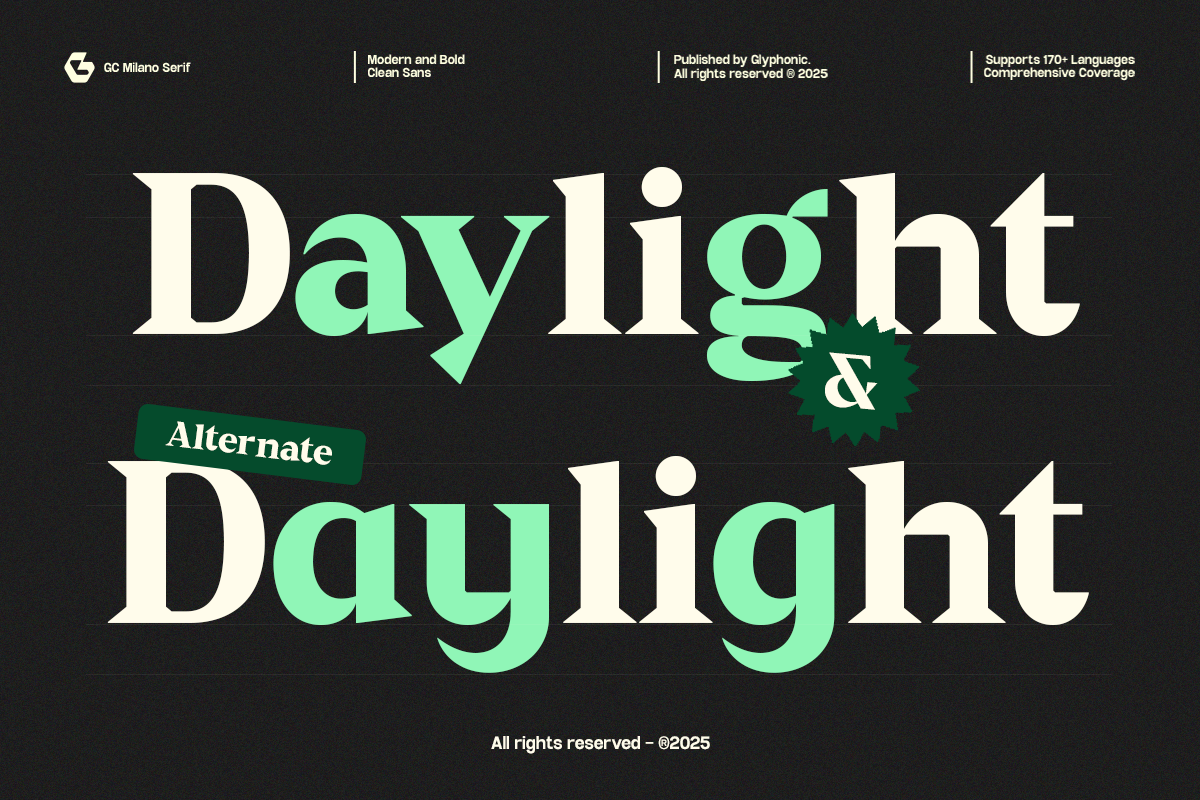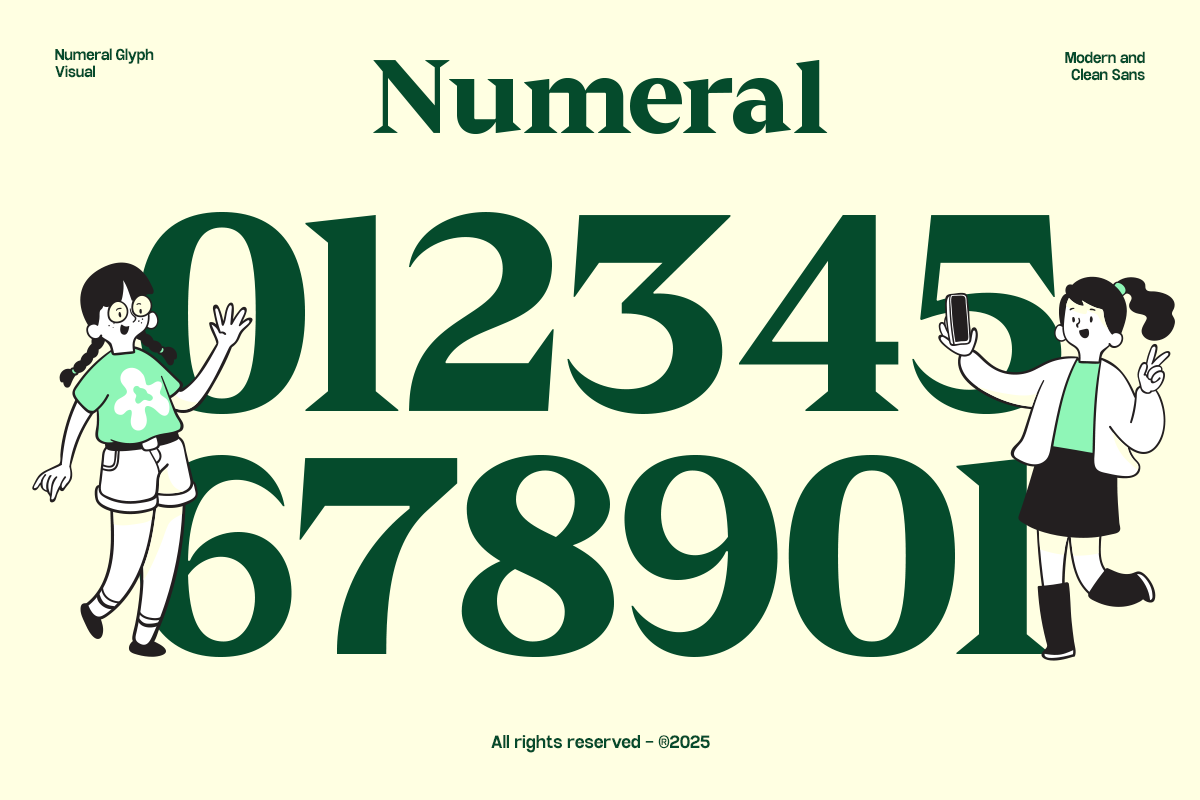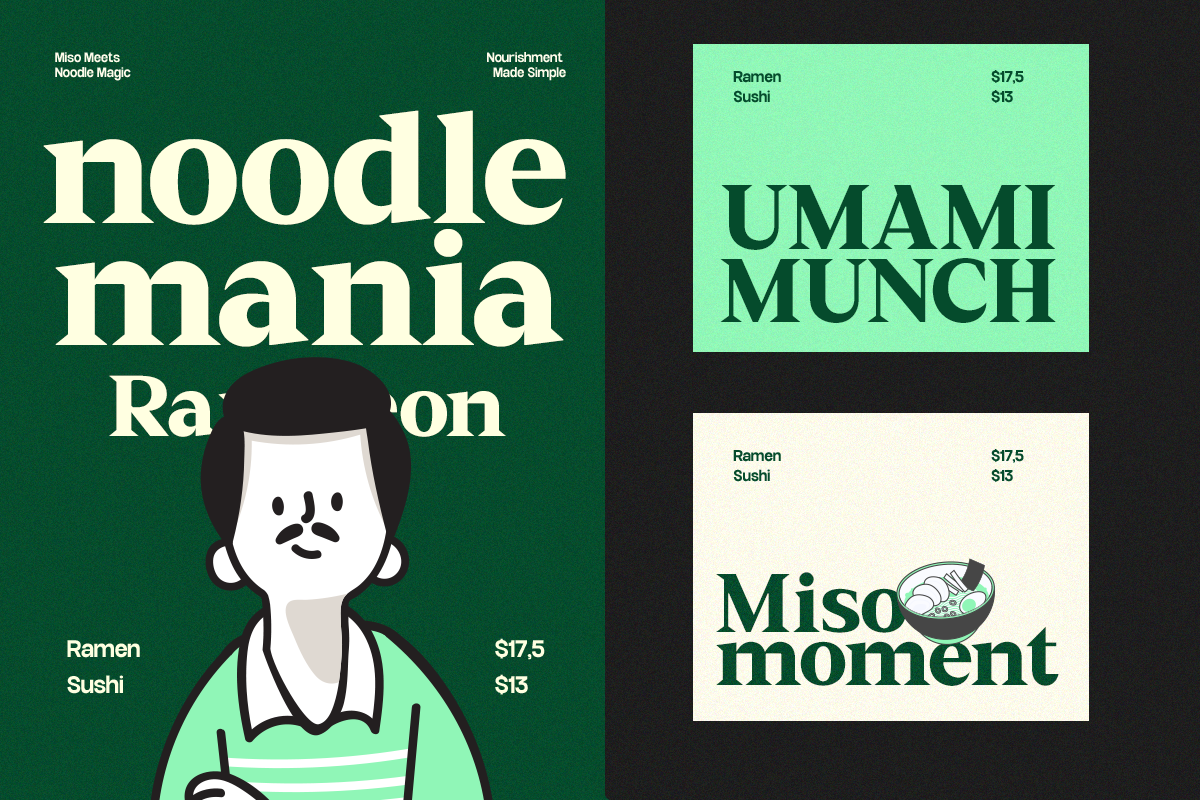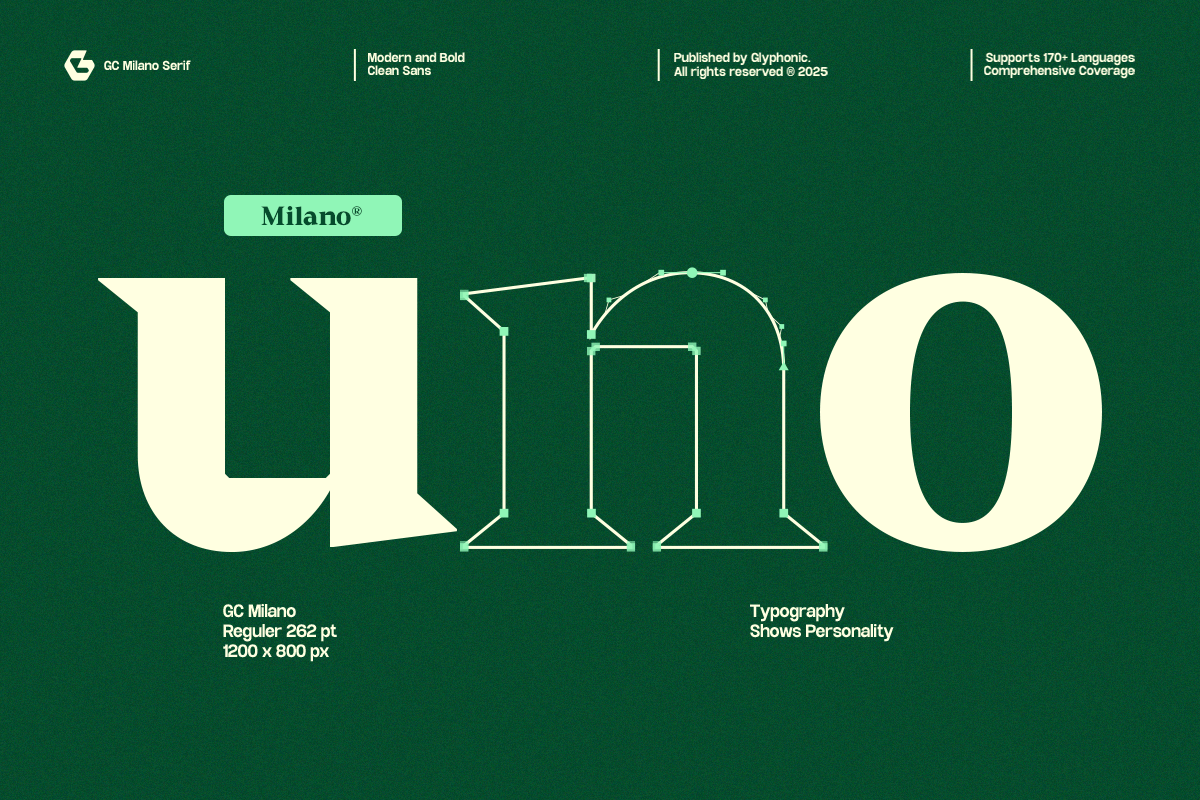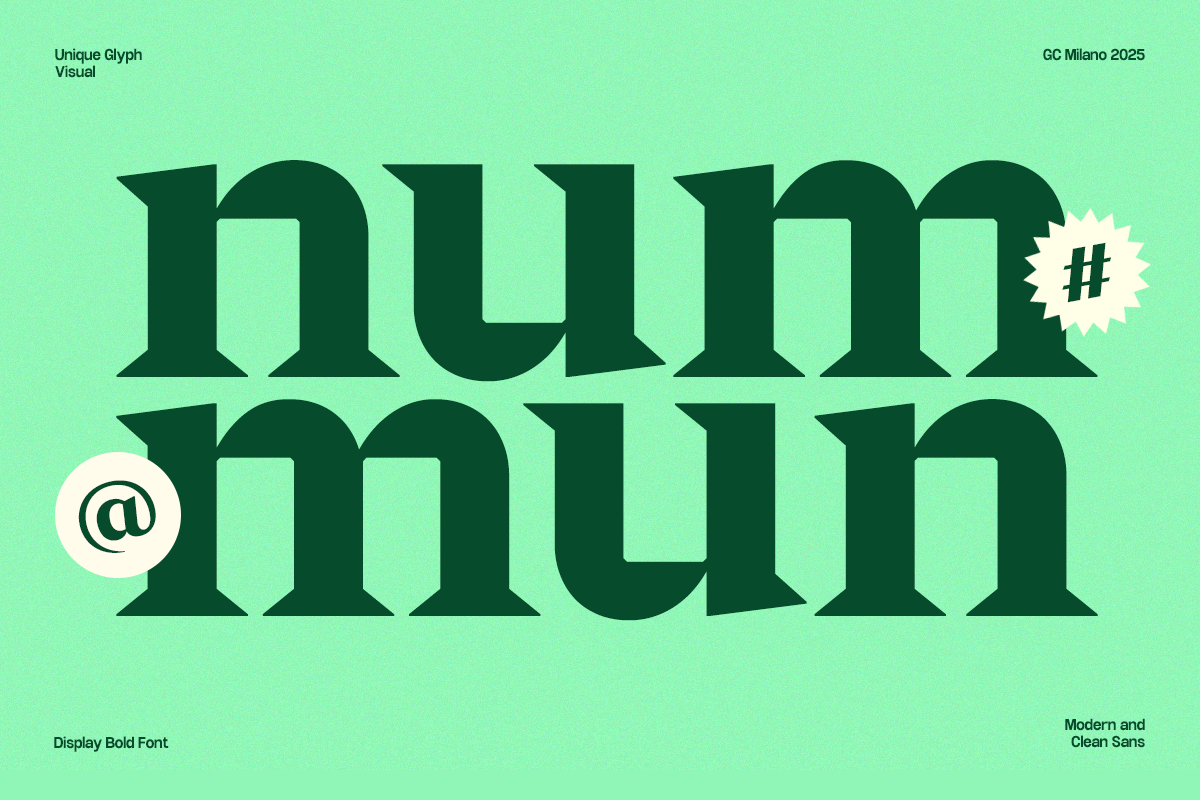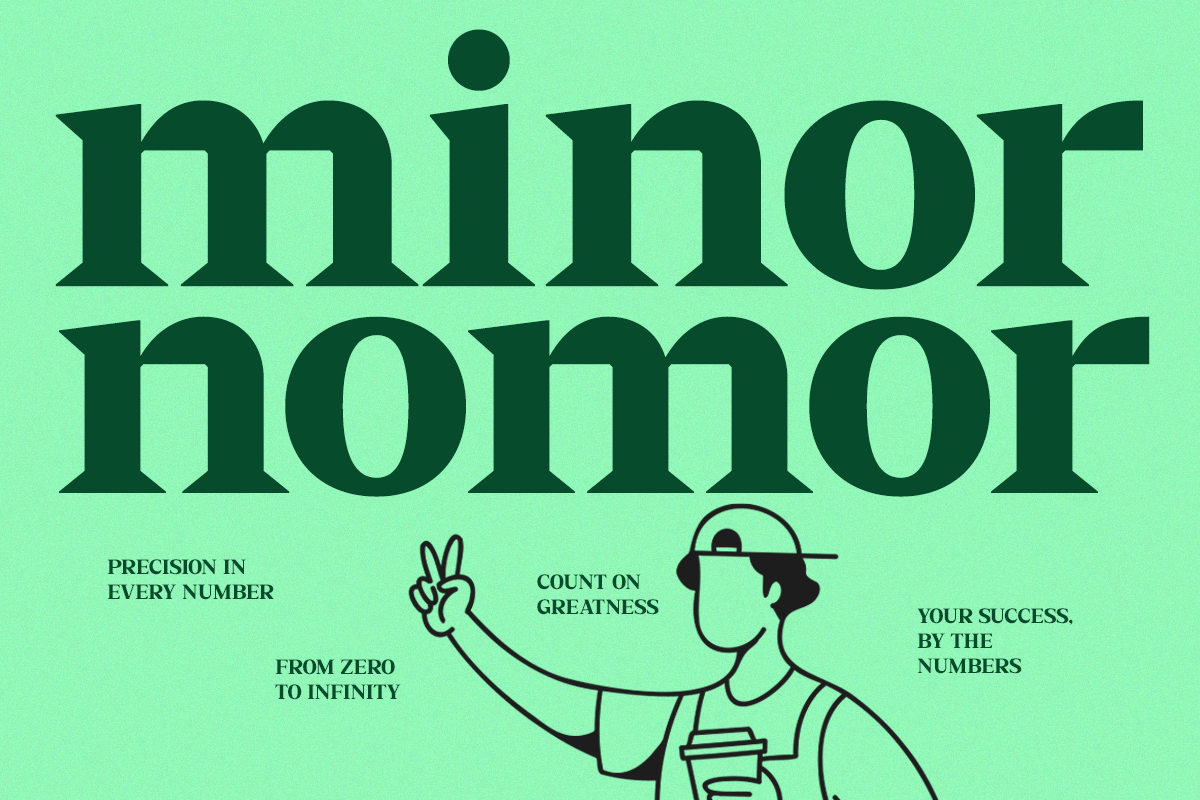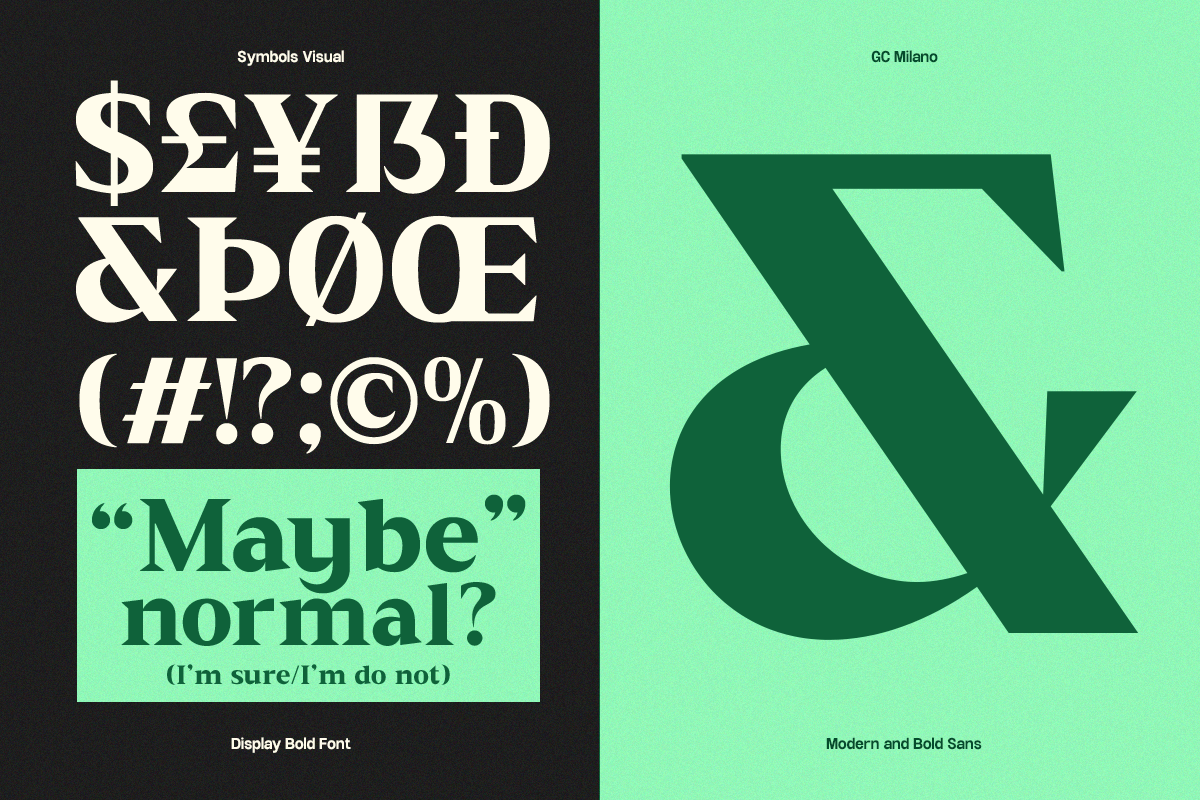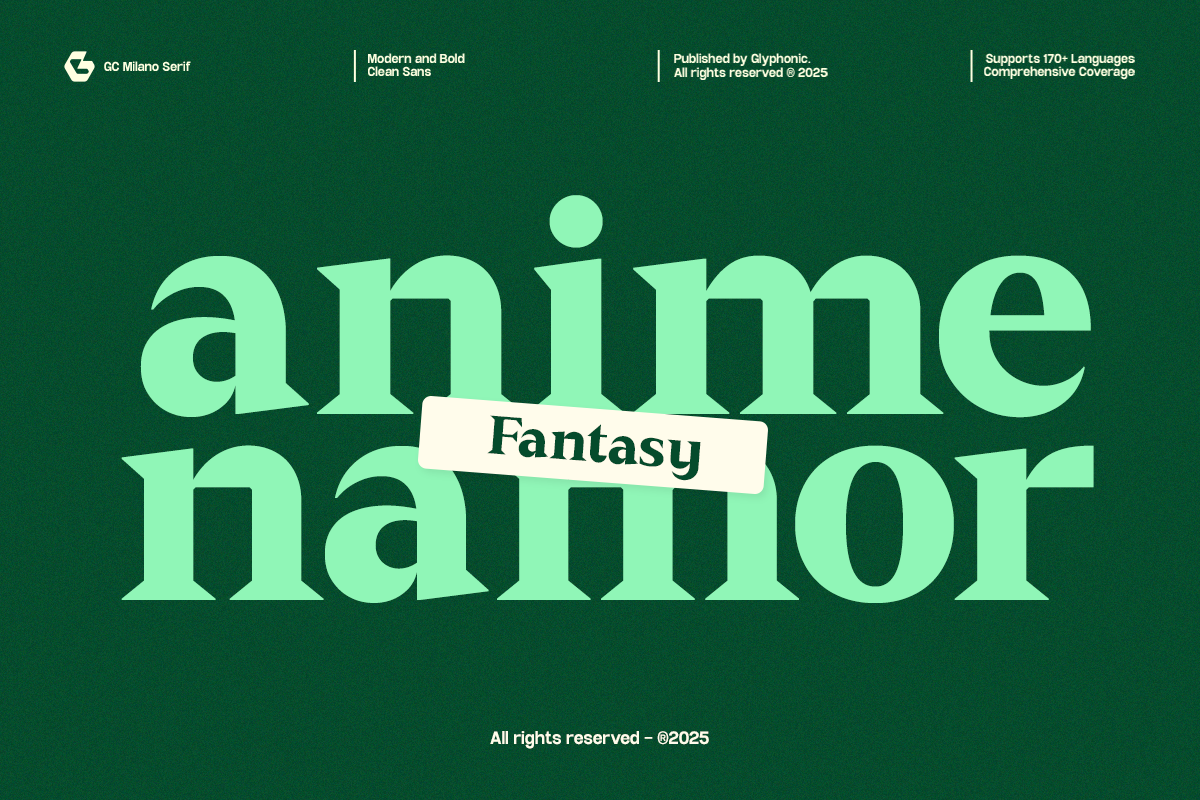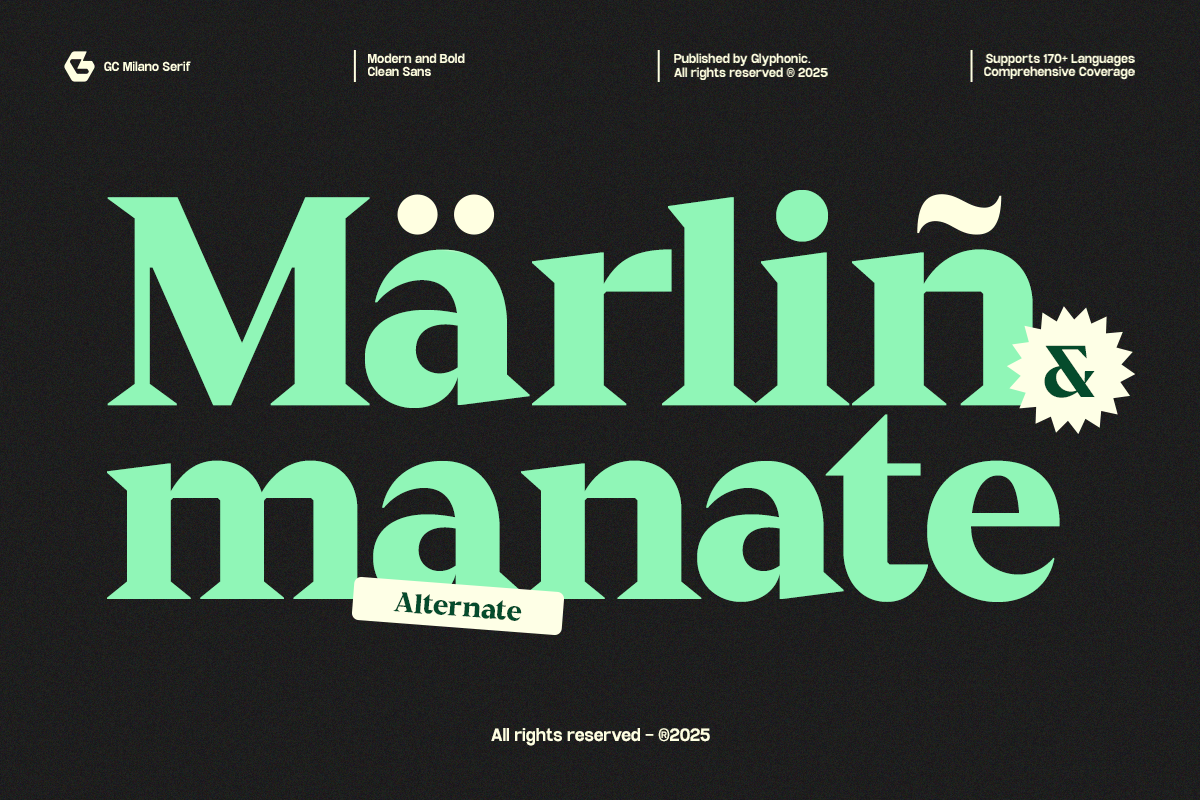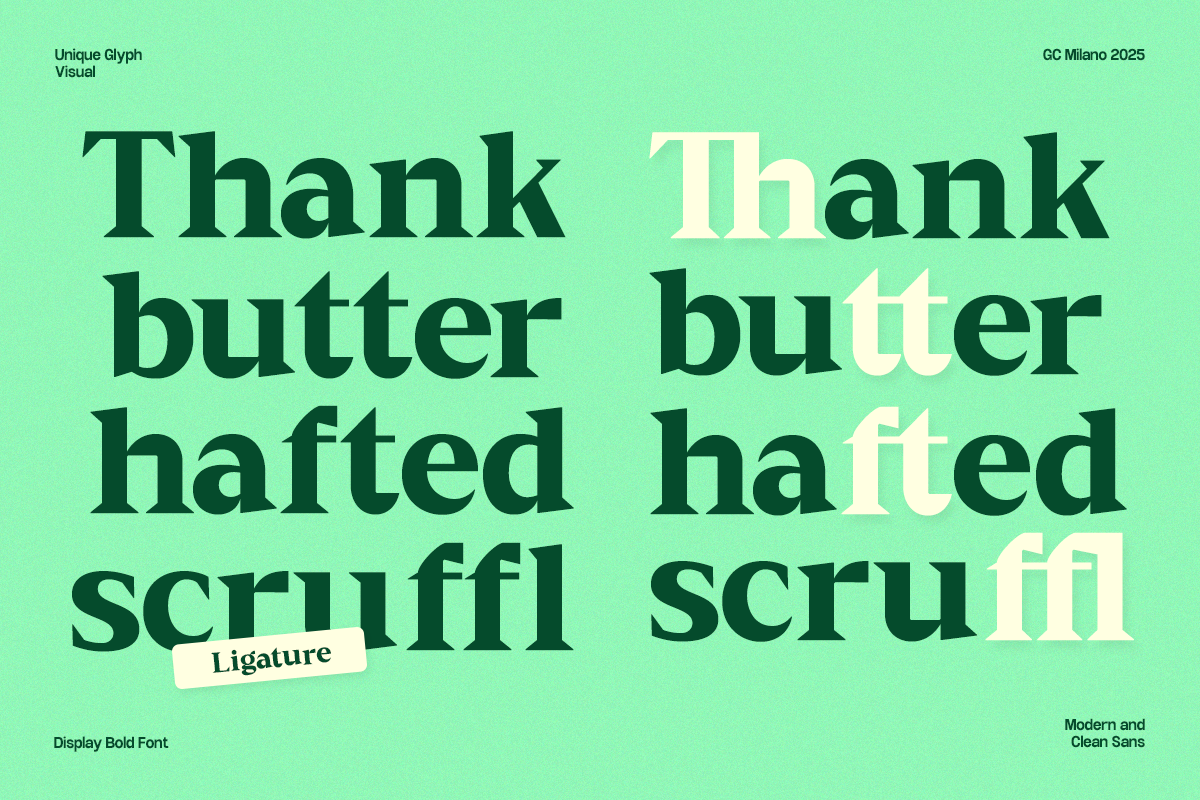
GC Milano – Strong Serif Elegance
GC Milano is a modern bold serif typeface that blends timeless elegance with striking strength. Designed to stand out while remaining refined, it’s perfectly suited for headlines, branding, logos, packaging, editorial layouts, and luxury-inspired visuals. Crafted with precision, it delivers a confident and sophisticated impression in any design.
With its high-contrast strokes, sharp serifs, and sculpted curves, GC Milano combines power with elegance. Whether you’re creating fashion identities, editorial spreads, or artistic projects, this typeface brings versatility, clarity, and refined style to your work.
- Ligatures & Stylistic Alternates
Make your design bold, refined, and timeless with GC Milano.